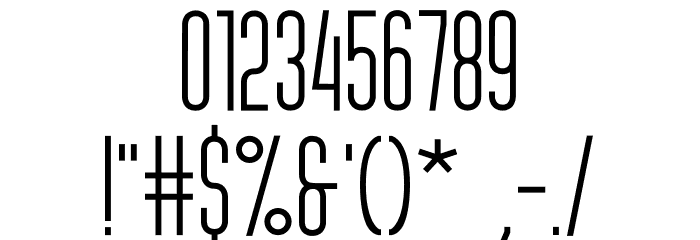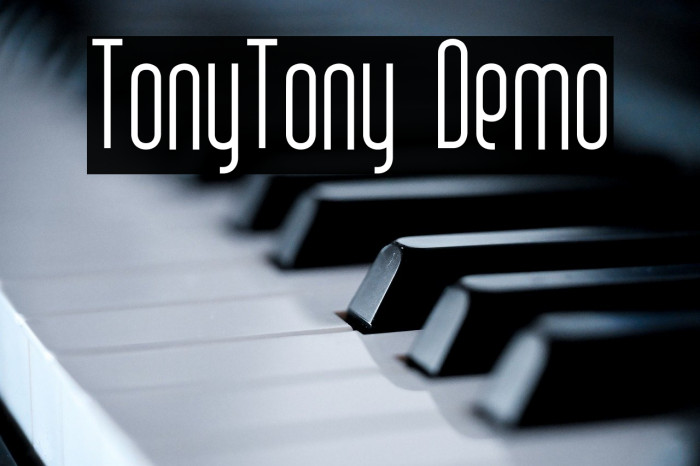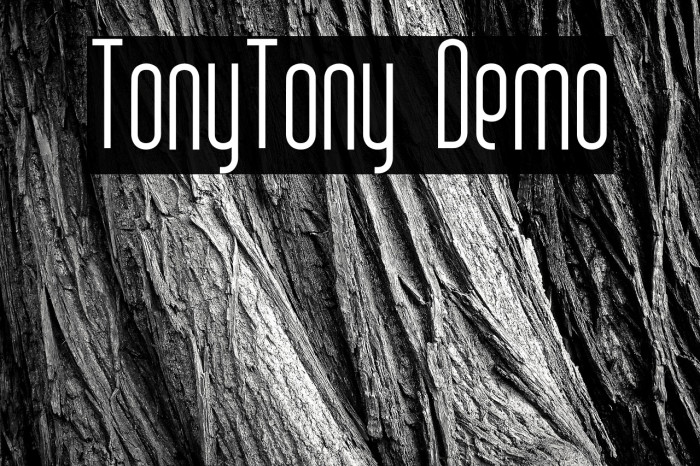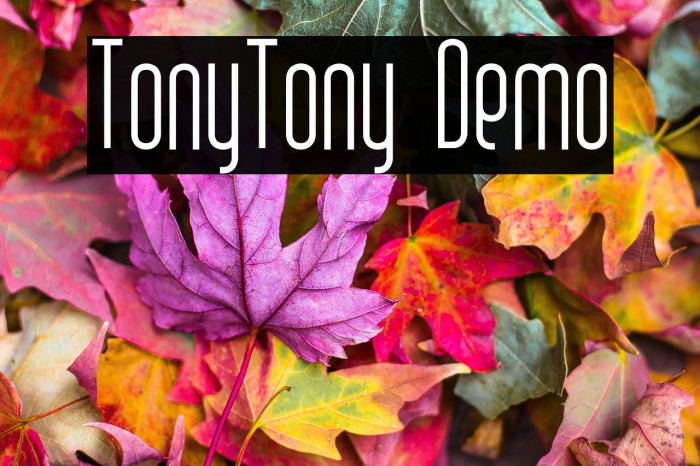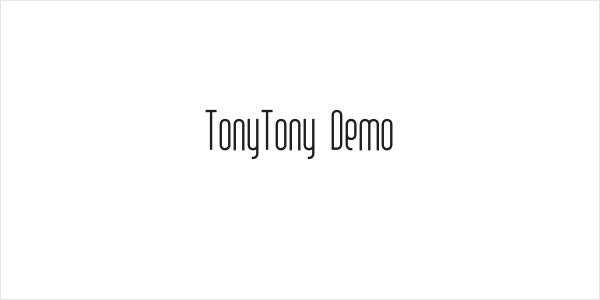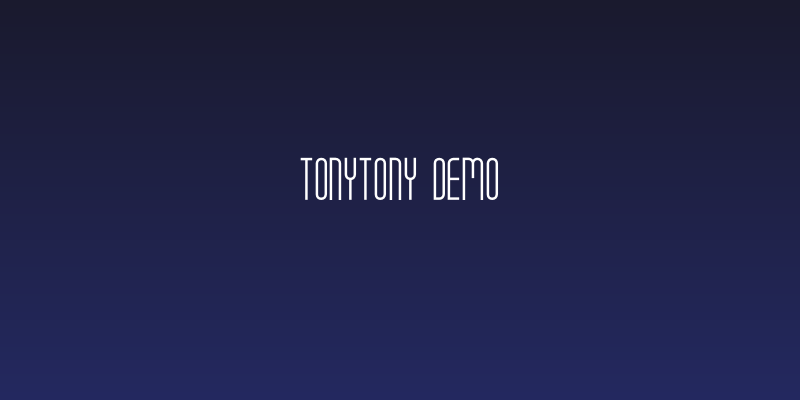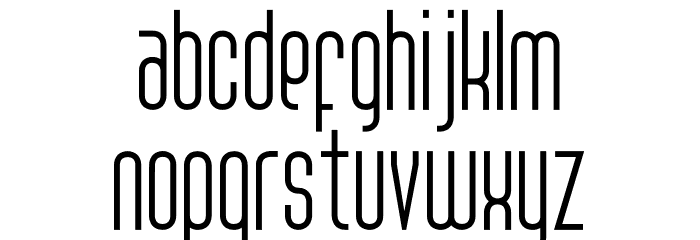
TonyTony Demo Font
TonyTony Demo Description
This font features a modern and sleek design with tall, narrow characters that convey a sense of elegance and sophistication. The uppercase and lowercase letters maintain a consistent height, creating a uniform appearance. The numerals and special characters are designed with the same narrow structure, ensuring a cohesive look across all text. The font's clean lines and minimalistic style make it suitable for contemporary design projects. Its geometric shapes and uniform stroke width contribute to its modern aesthetic, making it an excellent choice for branding, advertising, and digital media.
| Proposed Projects | Ideal for branding, advertising, digital media, and contemporary design projects. |